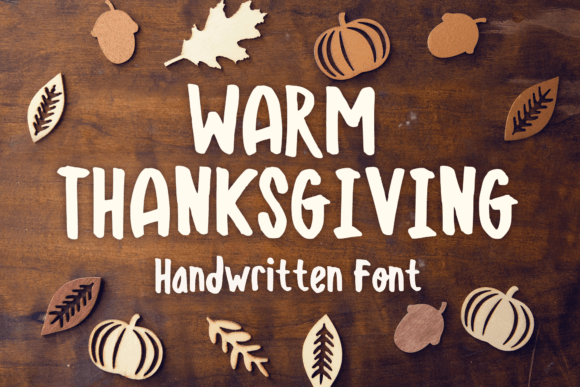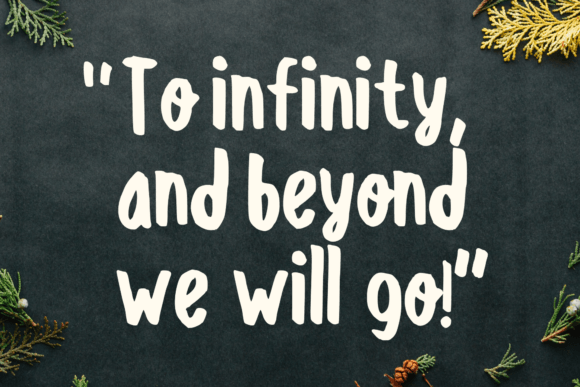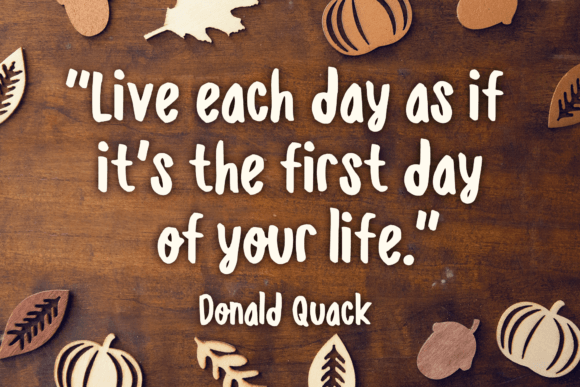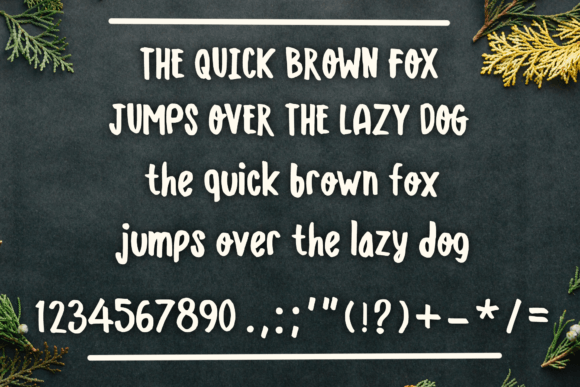
Warm Thanksgiving Font
Warm Thanksgiving is a warm and fun font for your thanksgiving day, you can use it for everyday use too for its versatility. Create something with it from regular typing notes, to t-shirts, kids’ book designs, greeting cards, stickers, posters, or anything that needs a casual touch. Fall in love with its incredible style and use it to create lovely designs!